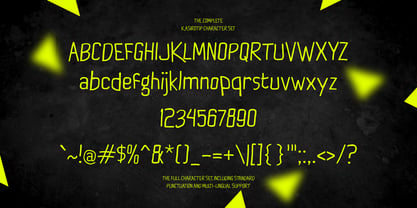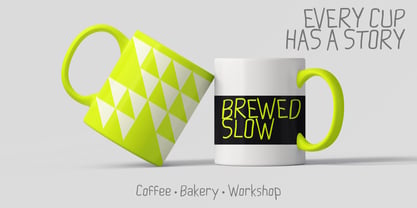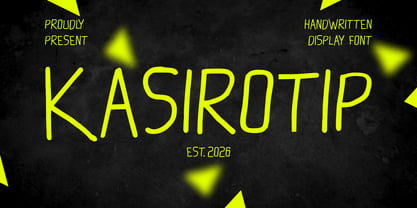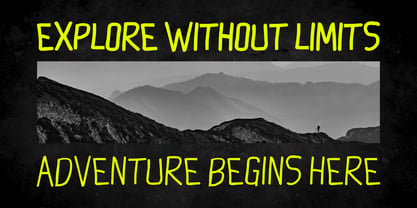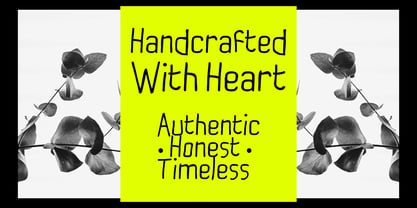
Kasirotip
by Mei Suseno
The Kasirotip Font Family was designed by Wahyu Eka Prasetya, Mei Suseno and published by Mei Suseno. Kasirotip contains 3 styles and family package options. More about this family
KASIROTIP is a handcrafted handwritten display font that brings a warm, authentic, and timeless personality to your designs. Inspired by vintage signage, rustic branding, and artisan craftsmanship, this font features tall, clean letterforms with a naturally imperfect touch that creates an effortless handmade feel.
Whether you're designing logos, packaging, labels, apparel, posters, coffee shop branding, or social media graphics, KASIROTIP delivers a charming vintage aesthetic while remaining highly legible. Its simple yet distinctive character makes it a versatile choice for creative projects that need a genuine handcrafted look.
Perfect for branding that tells a story, KASIROTIP adds a touch of nostalgia and originality to every design.
Perfect for:
• Logos
• Branding
• Packaging
• Labels
• Apparel
• Posters
• Quotes
• Signage
• Coffee Shops
• Outdoor & Adventure Themes
• Social Media
• Handmade Products